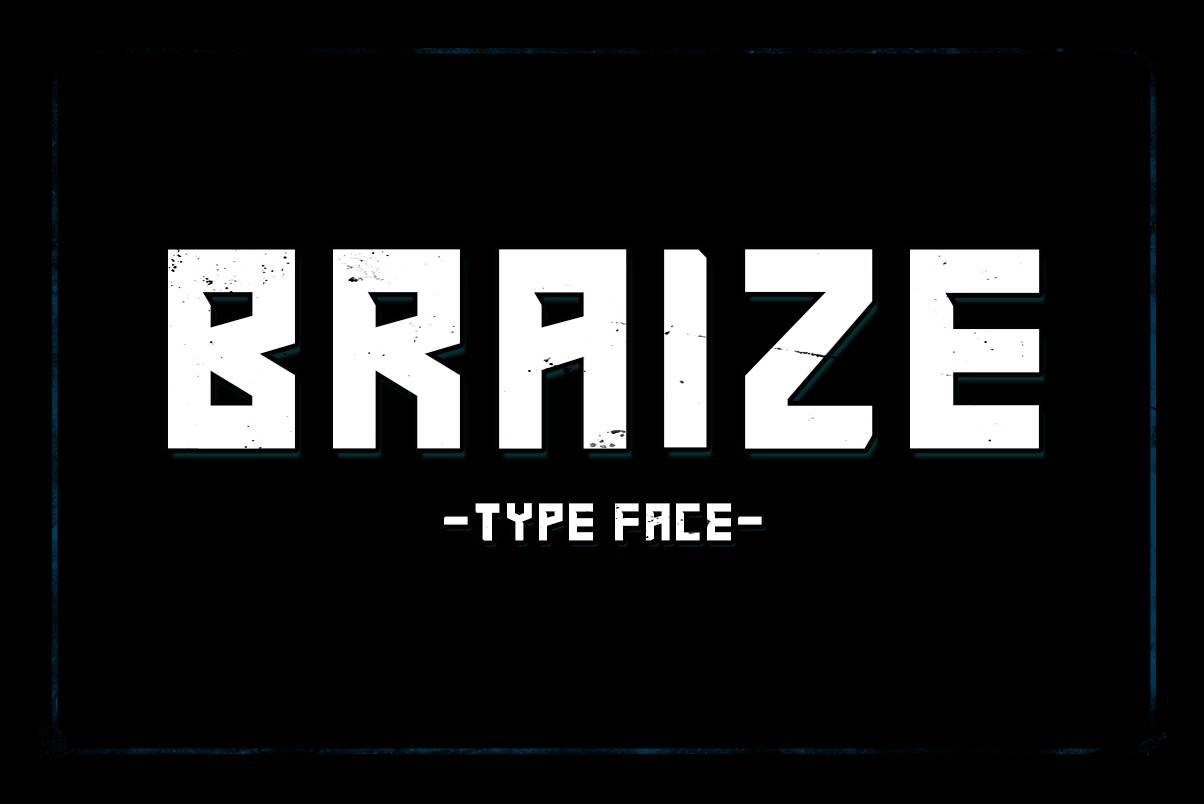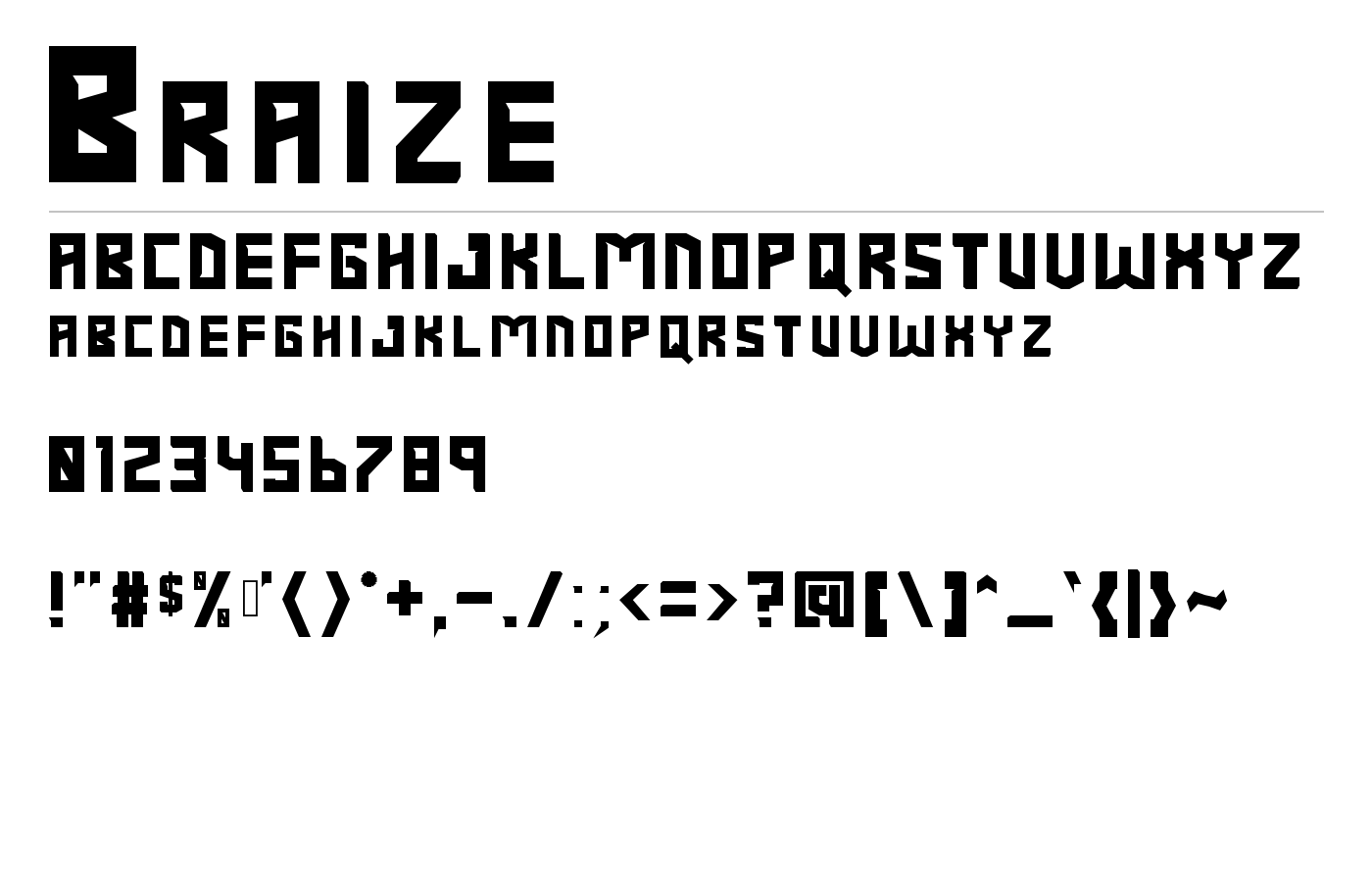
Braize
Braize was inspired by a thick rectangular shape with slightly sharp pieces. Braize is suitable for letters on soccer shirts, advertisements on billboards, band names, posters, book covers, packaging products, etc. This free typeface was designed by talented Hamlana Type. If you like it don’t forget to check out the full version.